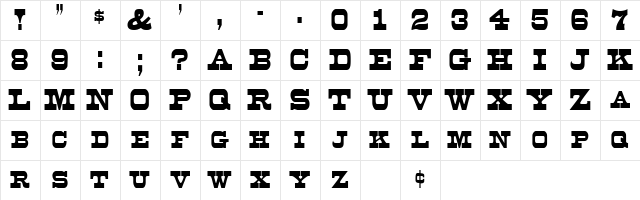
DuncanCondensed Regular
Design Context for DuncanCondensed Typeface
DuncanCondensed is a composed and adaptable typeface that performs quietly and consistently across a wide range of design contexts. The condensed width makes it efficient for tight spaces without sacrificing legibility.